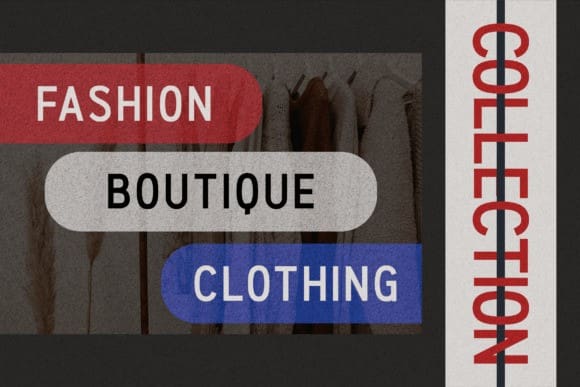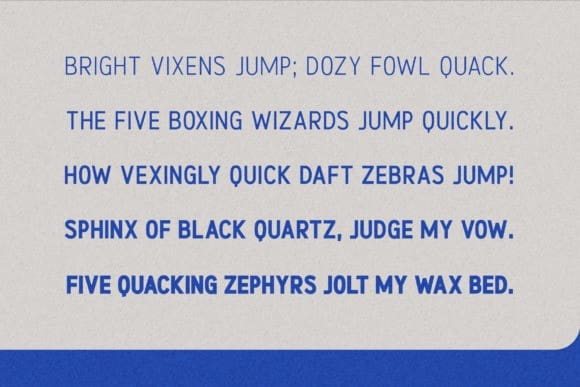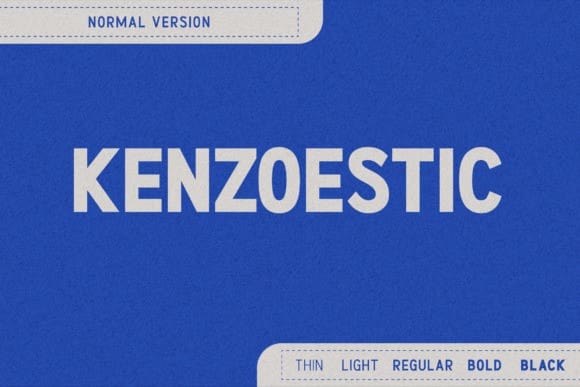
Kenzoestic Font Family
Kenzoestic Font Family, the epitome of elegance and minimalism. With 5 distinct weights, this sans serif collection seamlessly blends modernity and elegance. Crafted with the utmost precision, it effortlessly elevates any project, whether it’s a magazine, logo or movie poster. Discover the perfect balance of sophistication and simplicity, allowing your designs to exude timeless charm. Unlock the power of our font family today.